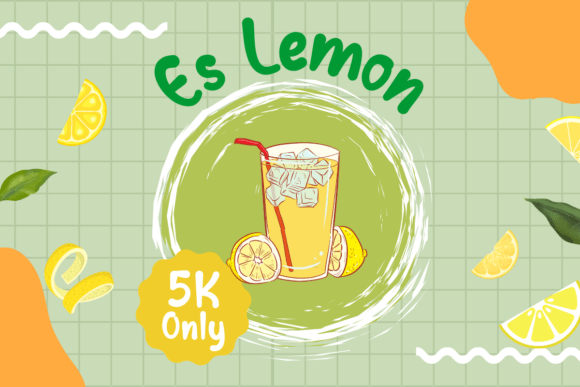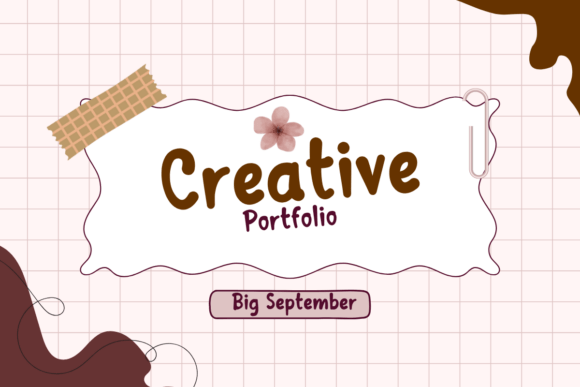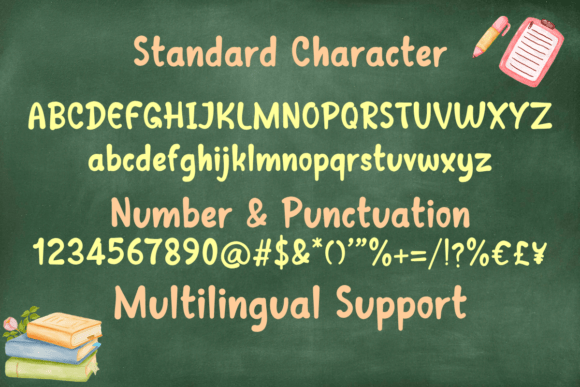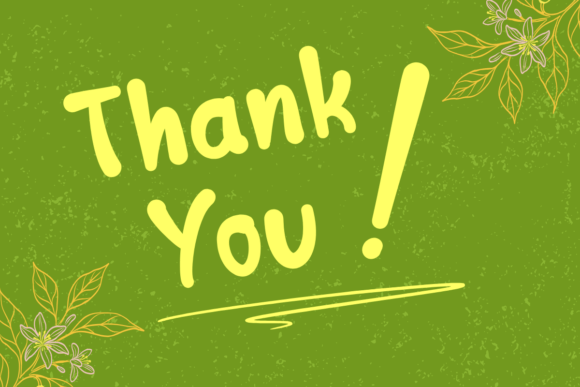
Introducing Big September Font: The Perfect Addition to Your Design Arsenal
Are you looking for a font that can bring a sense of warmth and friendliness to your designs? Look no further than Big September, a cheerful and playful handwritten-style font that’s perfect for a variety of projects. With its rounded characters and smooth, chunky lines, Big September is sure to capture the attention of your audience and leave a lasting impression.
What Makes Big September Font So Special?
Big September font is designed to mimic the energy of a new school year, making it an ideal choice for back-to-school themes, classroom posters, children’s books, educational worksheets, and fun event flyers. The font’s playful and cheerful vibe is sure to appeal to kids and adults alike, making it a great addition to any design project.
One of the standout features of Big September font is its versatility. The font includes uppercase and lowercase letters, full punctuation, numerals, and multilingual support, making it both fun and functional. Whether you’re designing for kids, educators, or family-oriented brands, Big September font is sure to add an inviting and light-hearted touch to your project.
Perfect for Digital and Print Projects
Big September font works beautifully in both digital and print projects, where readability and personality go hand-in-hand. The font’s smooth, chunky lines and rounded characters make it easy to read, even at smaller sizes. This makes it perfect for use in:
• Back-to-school themes and classroom posters
• Children’s books and educational worksheets
• Fun event flyers and party invitations
• Digital graphics and social media posts
• Print materials, such as brochures and flyers
Why Choose Big September Font?
So why choose Big September font for your next design project? Here are just a few reasons:
• Unique and playful style: Big September font has a unique and playful style that’s sure to capture the attention of your audience.
• Versatile and functional: The font includes uppercase and lowercase letters, full punctuation, numerals, and multilingual support, making it both fun and functional.
• Easy to read: The font’s smooth, chunky lines and rounded characters make it easy to read, even at smaller sizes.
• Perfect for kids and adults alike: Big September font is sure to appeal to kids and adults alike, making it a great addition to any design project.
Tips for Using Big September Font
Here are a few tips for using Big September font in your design projects:
• Use it as a headline font: Big September font is perfect for use as a headline font, where its playful and cheerful vibe can really shine.
• Pair it with other fonts: Big September font pairs well with other fonts, such as sans-serif fonts like Arial or Helvetica.
• Experiment with colors: Big September font looks great in a variety of colors, from bright and bold to pastel and soft.
In conclusion, Big September font is a cheerful and playful handwritten-style font that’s perfect for a variety of design projects. With its rounded characters and smooth, chunky lines, Big September is sure to bring a sense of warmth and friendliness to any design. Its versatility, readability, and unique style make it a great addition to any design arsenal. So why not give Big September font a try today and see how it can elevate your designs?